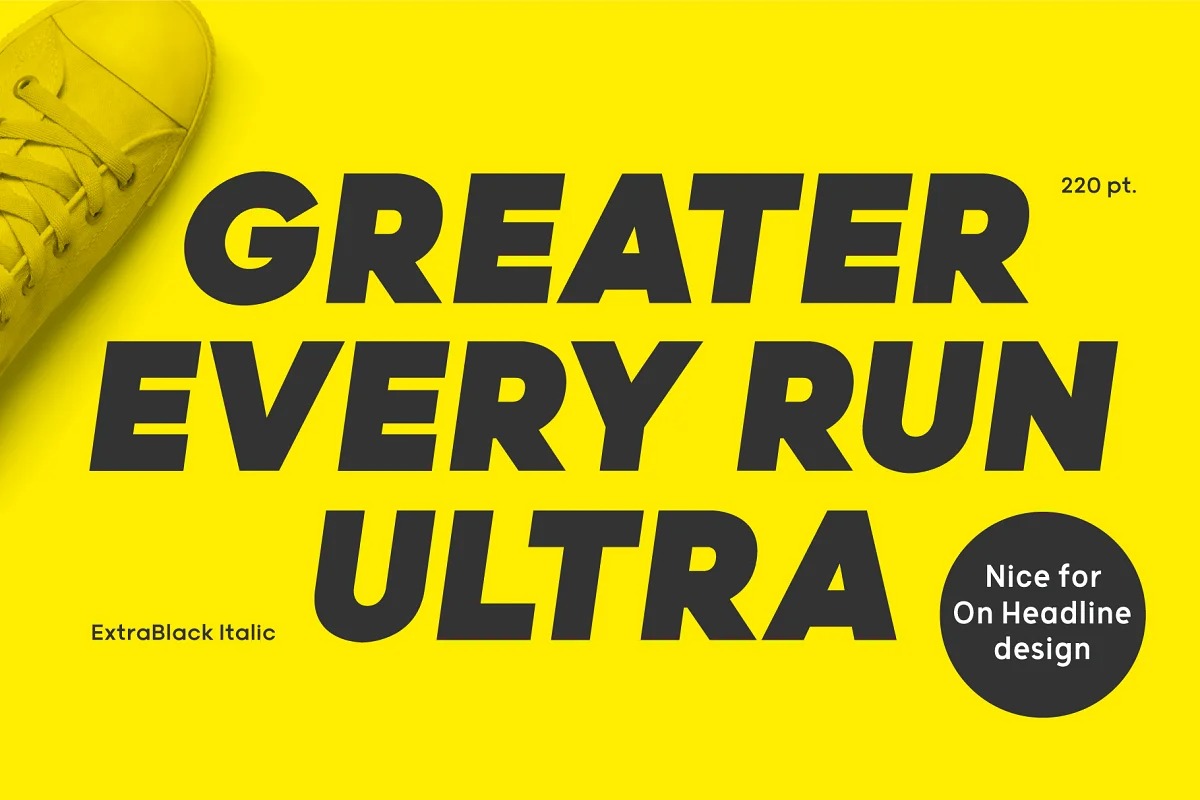
Grold Sans Serif Font is a normal sans serif family of 40 fonts. With a modern style or neo-grotesque, Grold has balanced proportions in every letter, and it’s clean, minimal and cool. It’s a unique and modern sans typeface, which is well suited for a variety of typographic applications such as headlines and small texts. The Grold font family supports multiple languages and is available as both webfont and desktop font.